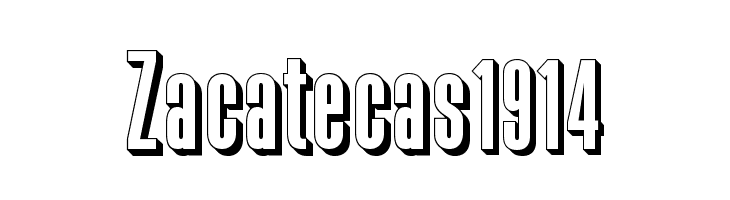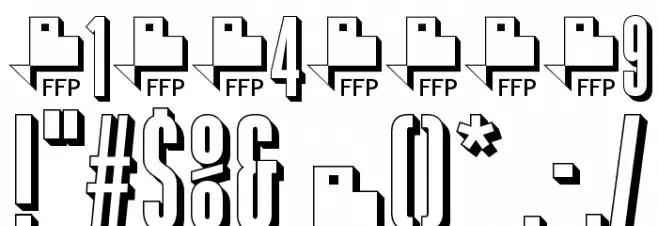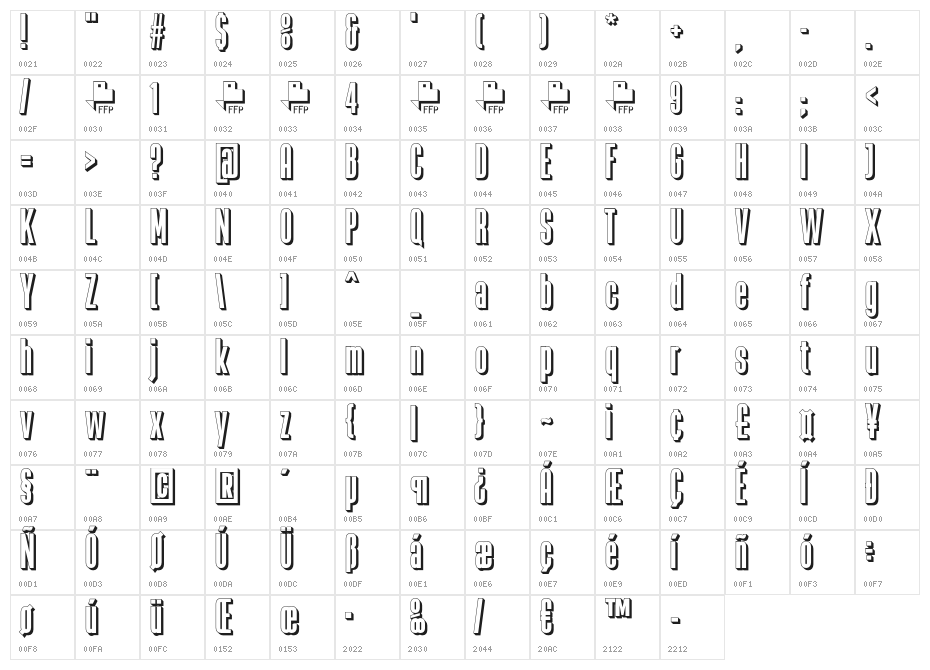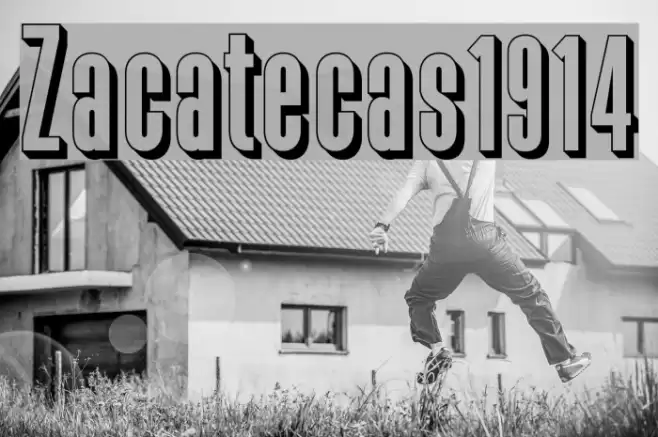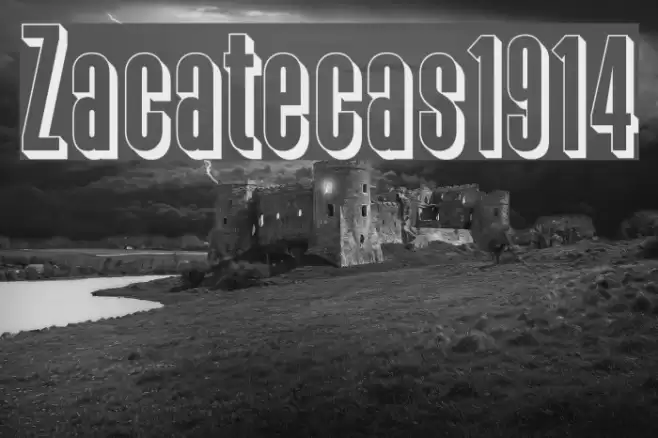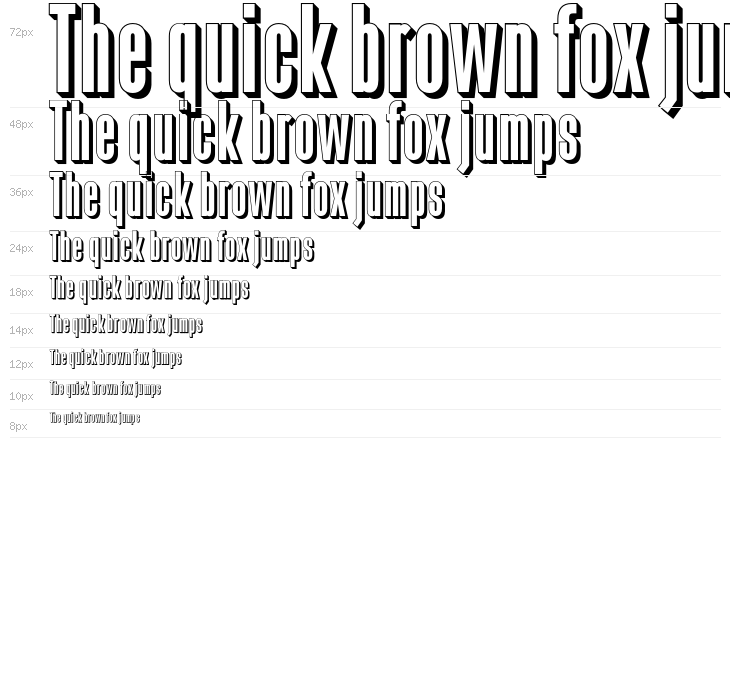
Zacatecas1914 Font
Zacatecas1914 Description
This font features a bold, three-dimensional appearance with a strong shadow effect that gives it a striking and impactful look. The uppercase and lowercase letters maintain a consistent width, creating a uniform and cohesive style. The numbers and special characters follow the same design principles, ensuring a harmonious overall appearance. The font's boldness and shadowing make it ideal for attention-grabbing headlines and designs that require a dramatic flair. Its geometric structure and clean lines contribute to a modern aesthetic, while the shadow effect adds a touch of vintage charm.
Overall StyleModern, Vintage
Proposed ProjectsIdeal for posters, headlines, logos, and any design needing a bold, attention-grabbing font.